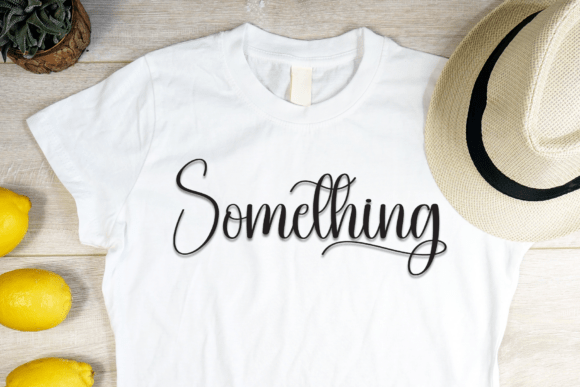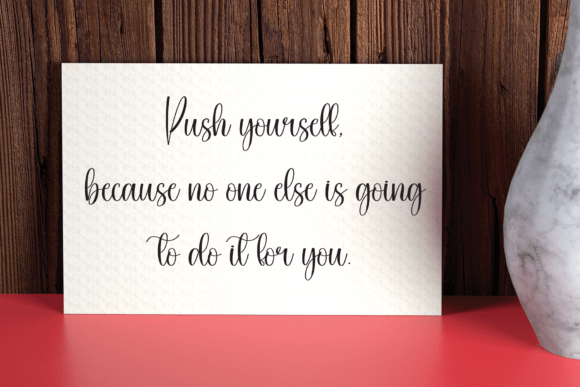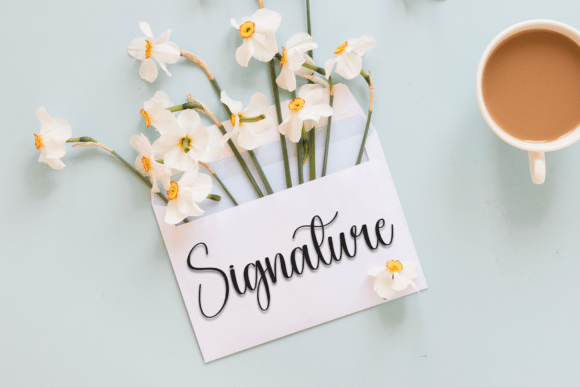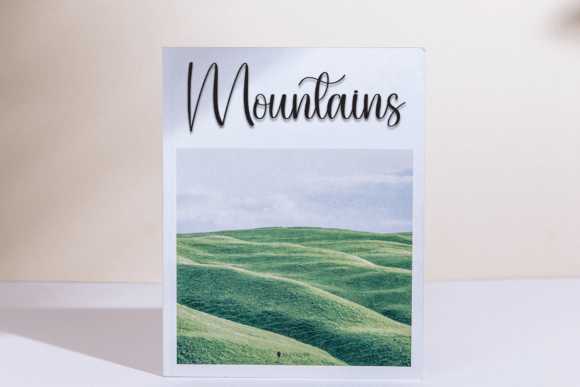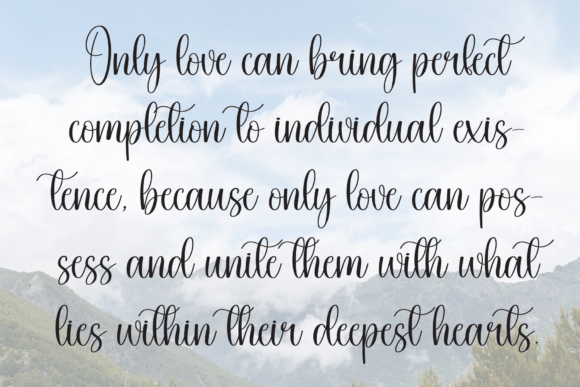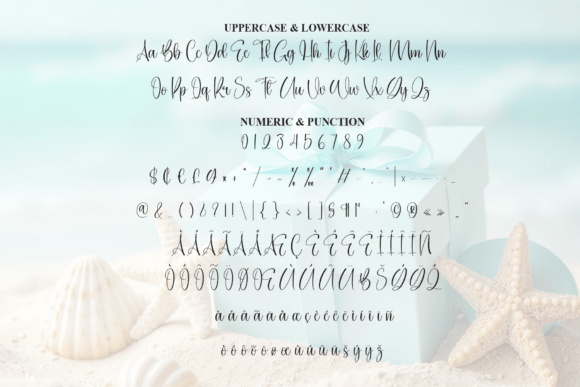
Introduction to Beach Birthday Font
As a designer, there’s nothing quite like the thrill of finding that perfect font to elevate your project. It’s the moment when all the elements come together, and you know you’ve got something special. For me, that moment often happens when I’m working on a design that needs a touch of whimsy and charm. And that’s exactly what the Beach Birthday Font delivers.
This lovely handwritten script font is a treasure trove of creative possibilities, perfect for designers looking to add a soft, personal touch to their projects. With its flowing strokes and delicate curves, the Beach Birthday Font radiates a sense of renewal and freshness, making it a valuable addition to any design resource.
Key Features of Beach Birthday Font
- High-quality, hand-drawn design perfect for creative projects like invitations, greeting cards, and social media graphics.
- Unique, beach-inspired style with a transparent background, allowing for easy layering and customization.
- Designed to be highly legible, with a clear and readable font size of up to 72 points, making it perfect for large-scale designs.
- Perfect for summer-themed projects, beach parties, and other outdoor events, adding a touch of fun and whimsy to any design.
Honest Review: Beach Birthday Font
I recently had the chance to work with the Beach Birthday Font for a creative project, and I must say it was a delightful experience. As a designer, I’m always on the lookout for high-quality design resources that can elevate my work, and this font definitely fits the bill.
Here are some things that work well with the Beach Birthday Font:
- ✨ Beautiful, cursive script that’s perfect for adding a touch of whimsy to your designs
- ✨ Clear, easy-to-read text that’s ideal for invitations, greeting cards, and other creative projects
- ✨ Transparent background, making it easy to place over images or other design elements
While the Beach Birthday Font is a great addition to any designer’s toolkit, there are a few limitations to be aware of:
- ⚠️ Limited character set, which may make it less suitable for longer blocks of text
Designing with Beach Birthday Font
The Beach Birthday Font is a high-quality design resource perfect for any creative project. With its unique and playful style, it’s ideal for adding a personal touch to your designs.
Tips for Getting the Most Out of Beach Birthday Font
To get the most out of the Beach Birthday Font, try using it in combination with a transparent background to create a beautiful and eye-catching design. Experiment with different font sizes and colors to add depth and interest to your design.
The Beach Birthday Font is perfect for:
- Birthday invitations and party decorations
- Summer-themed designs and graphics
- Personalized gifts and stationery
Compared to Beach Birthday Font, Surfside Script has a more refined and polished look, making it suitable for a wider range of design applications. While Beach Birthday Font is more playful and casual, Surfside Script is more versatile and sophisticated.
2. Coastal Chic
Coastal Chic is a modern, sans-serif font that exudes a sense of freshness and vitality. It’s perfect for designing logos, social media graphics, and other digital elements that require a clean and minimalist look.